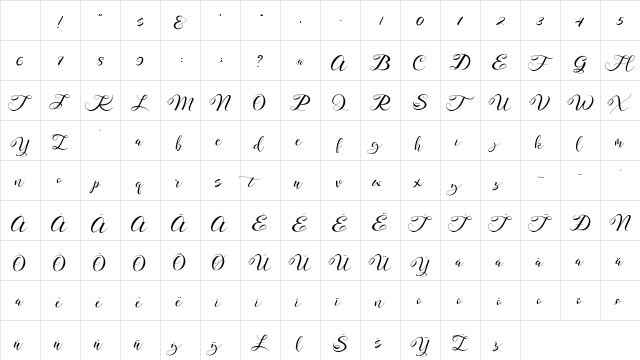
Complete Mahdaleina Regular glyph index. Displaying only characters natively supported by Mahdaleina Regular font.
Mahdaleina is a composed and adaptable typeface that performs quietly and consistently across a wide range of design contexts.